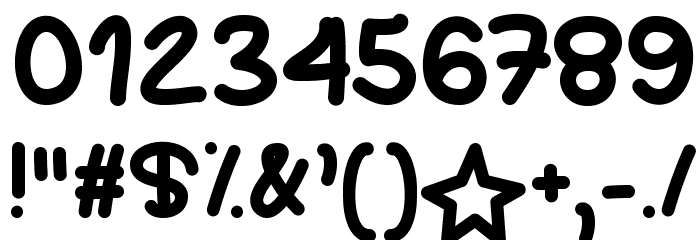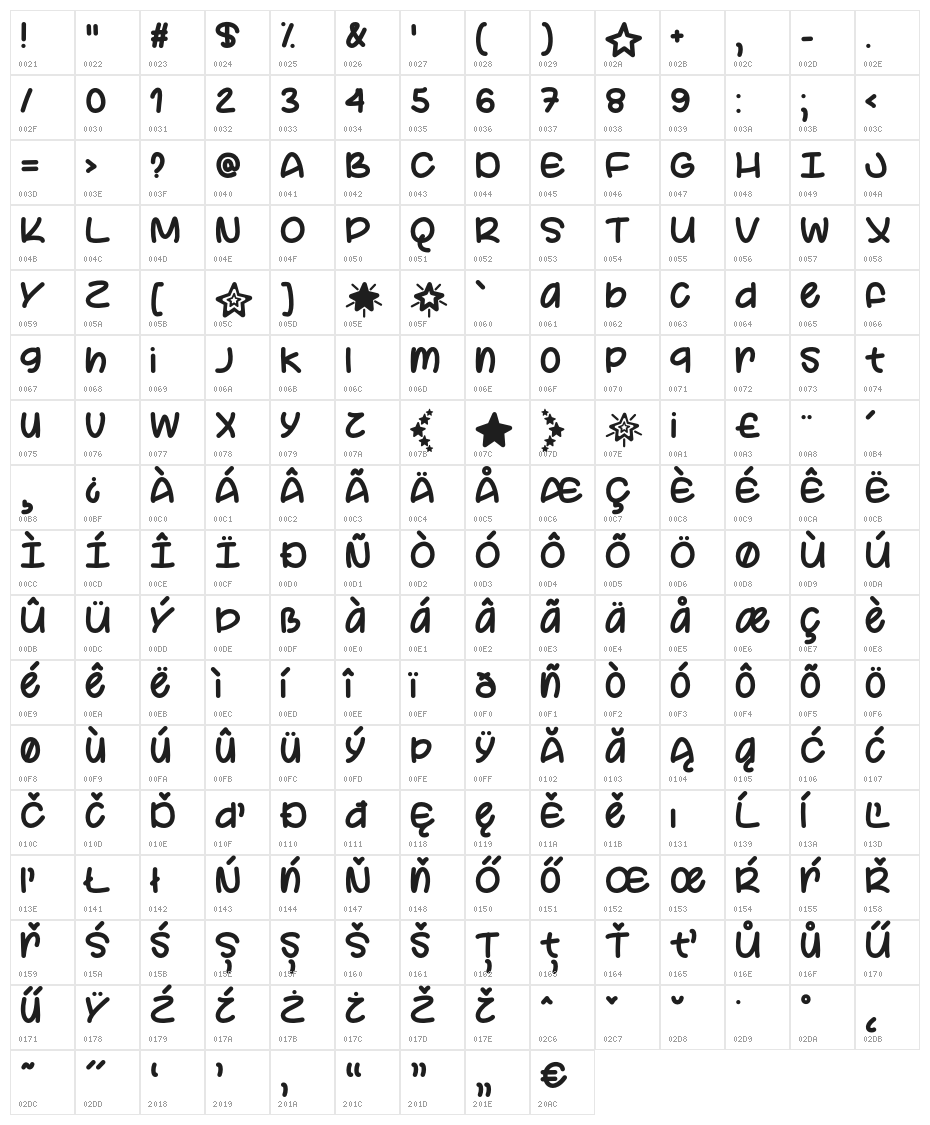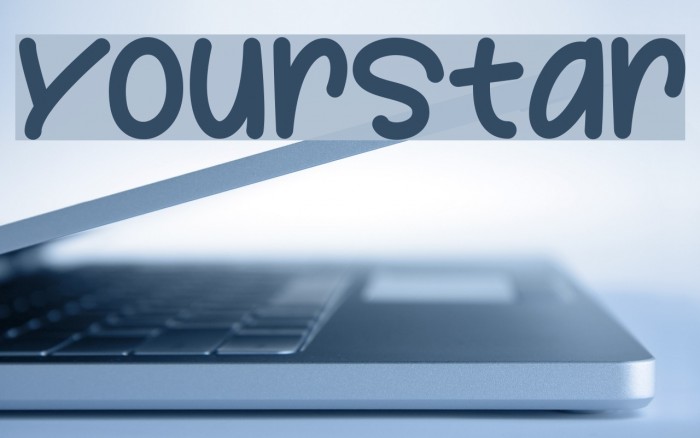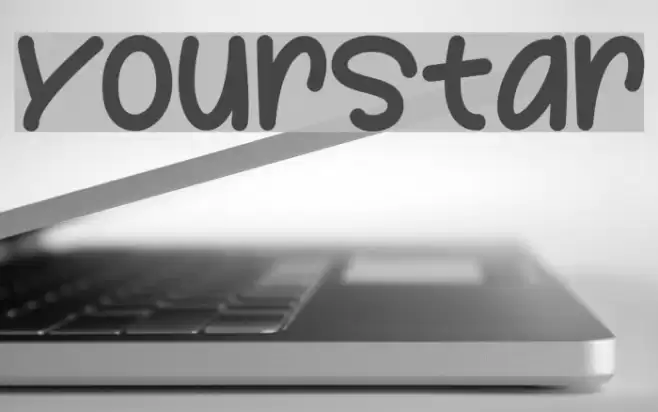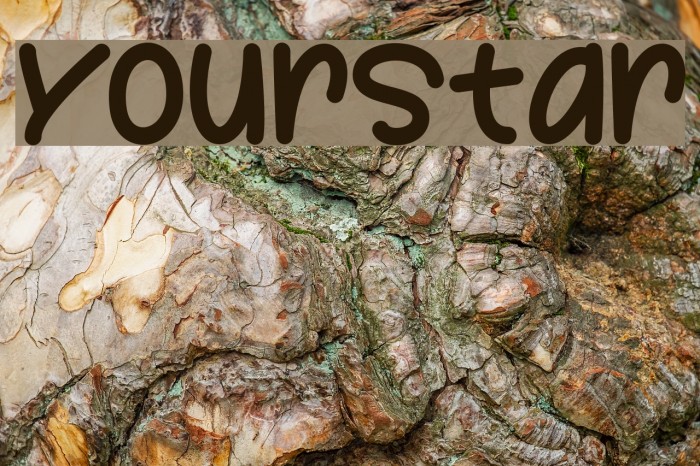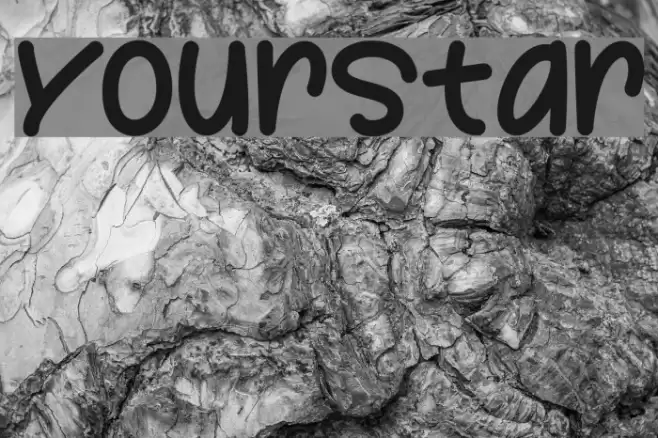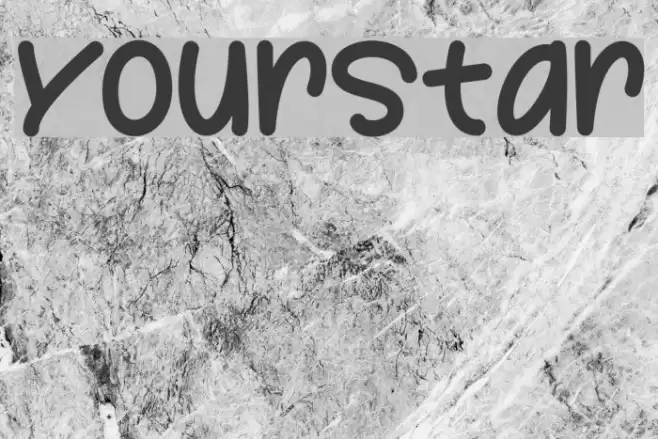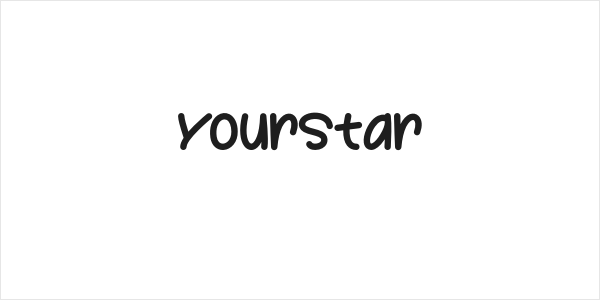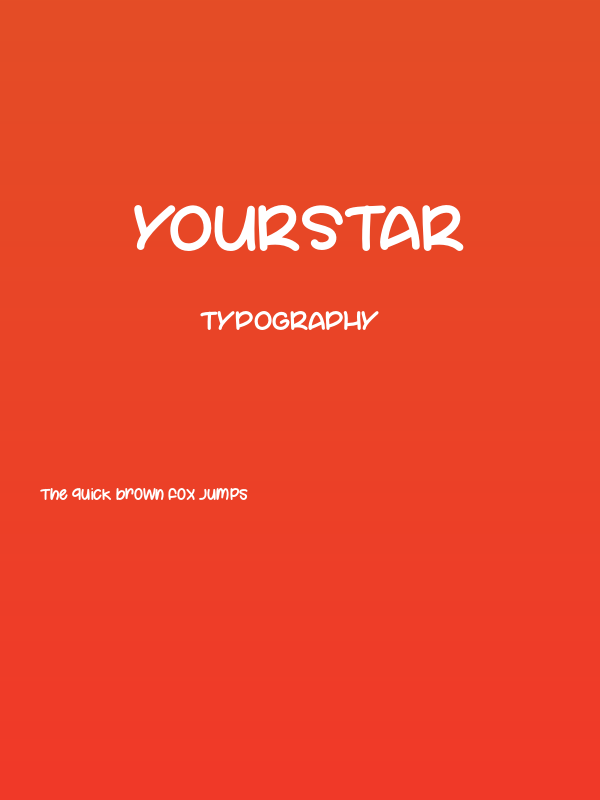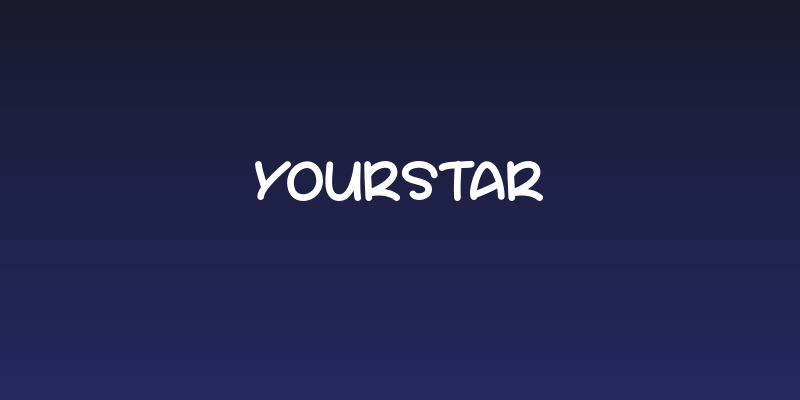
YourStar Font
YourStar Description
This playful and rounded font features a handwritten style with a casual and friendly appearance. The characters are bold and slightly irregular, giving them a whimsical and approachable feel. The uppercase and lowercase letters maintain a consistent style, with smooth curves and a slightly exaggerated width. Numbers and special characters are designed to match the overall playful aesthetic, making them suitable for creative and informal projects. The font's unique style is ideal for capturing attention and conveying a sense of fun and creativity.